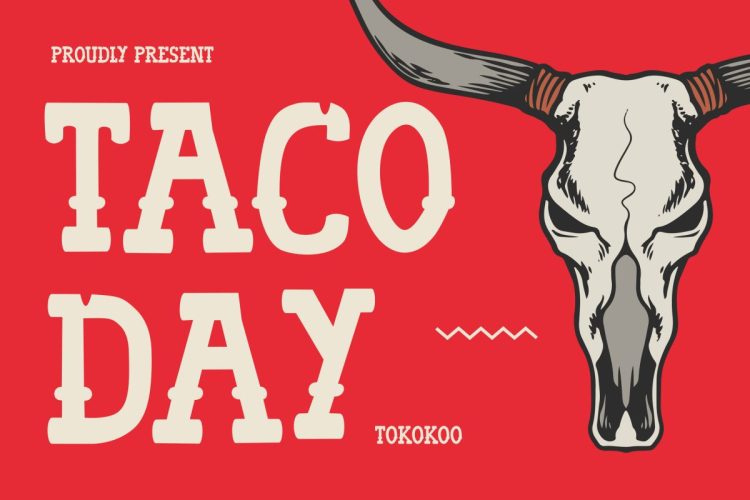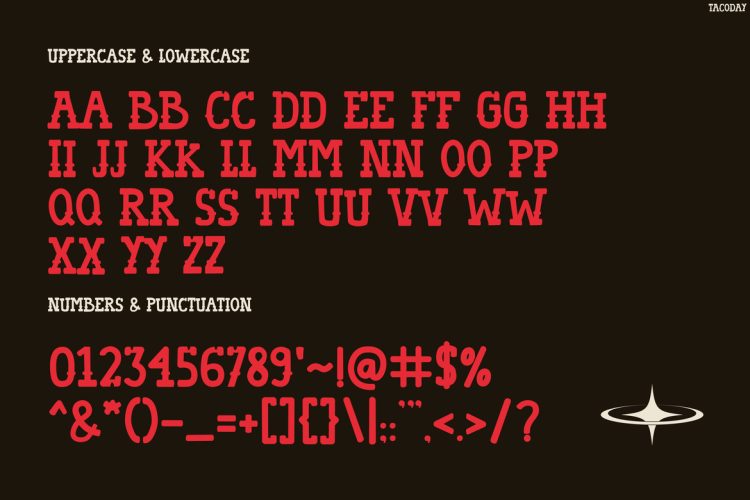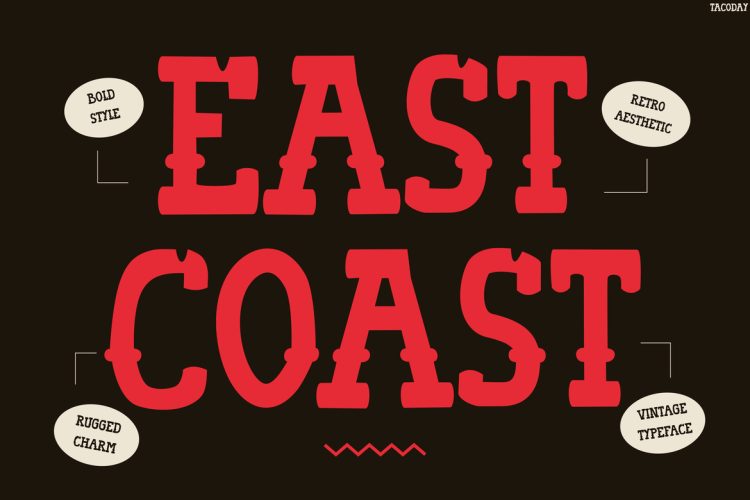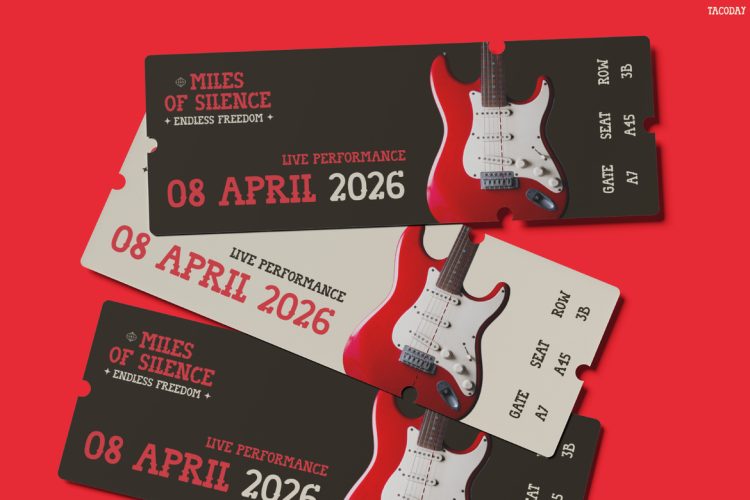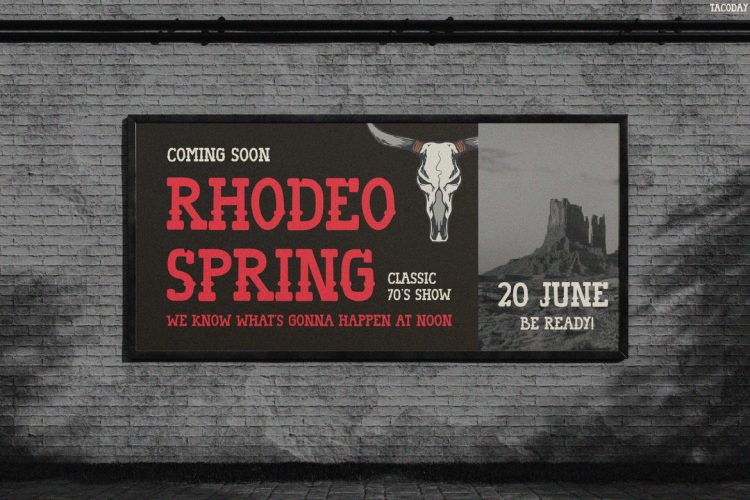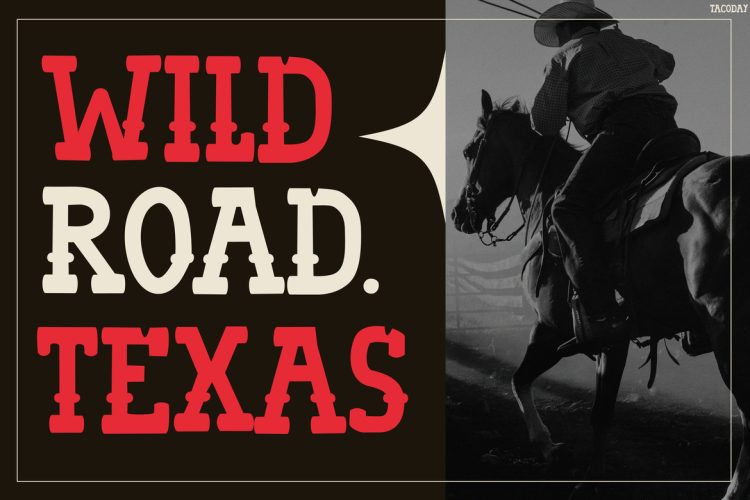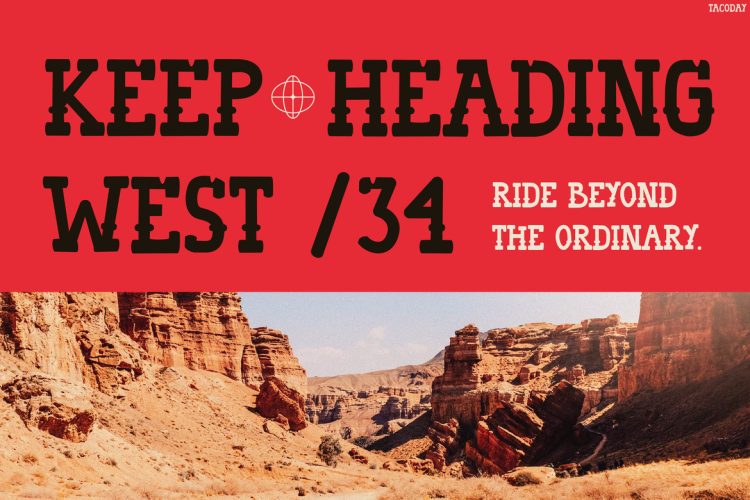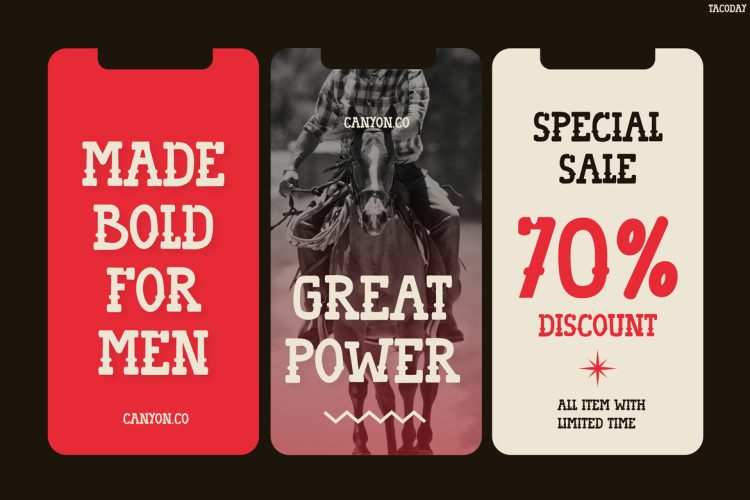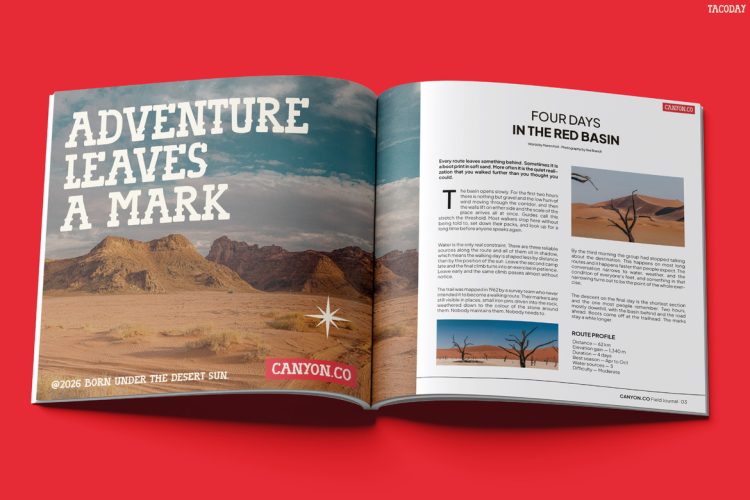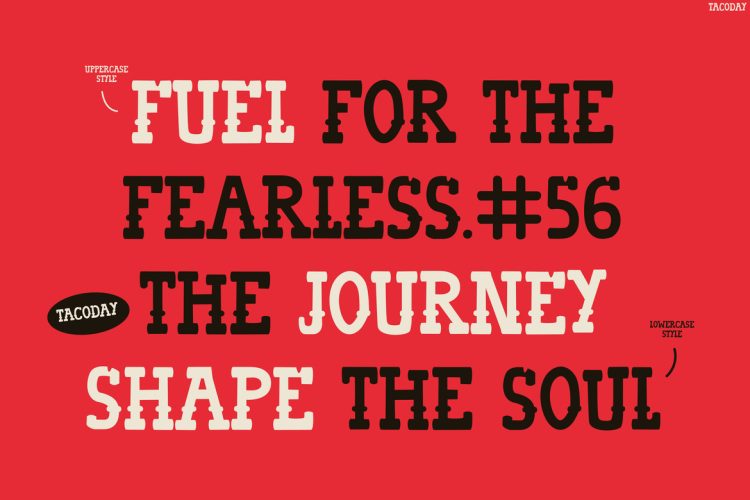
TACODAY โ Rugged Western Font Built for Bold Adventures
Western Font TACODAY brings the fearless spirit of the Wild West into a bold display typeface filled with authentic frontier character. From the very first glance, its rugged slab-inspired letterforms create a strong and unforgettable visual presence. Moreover, the handcrafted details add vintage charm while preserving excellent readability. As a result, every headline feels powerful, confident, and full of personality. At the same time, its balanced structure keeps layouts clean and easy to read. Even better, TACODAY works beautifully across both print and digital projects, giving every design a timeless Western atmosphere.
Why You’ll Love It
Whether you’re creating posters, branding, apparel, restaurant menus, whiskey labels, album covers, or social media graphics, Western Font TACODAY delivers authentic cowboy style with modern flexibility. Furthermore, its bold letterforms instantly capture attention. In addition, the vintage aesthetic pairs effortlessly with rustic, retro, and contemporary layouts. Not only does it strengthen your visual identity, but it also adds warmth, adventure, and handcrafted character. Likewise, it fits creative agencies, clothing brands, cafรฉs, country festivals, outdoor businesses, musicians, and content creators. Consequently, every project becomes more memorable and visually engaging. Meanwhile, its versatile style allows you to explore countless branding possibilities without losing authenticity.
Western Font TACODAY Perfect For
- Western branding
- Cowboy and rodeo events
- Vintage posters
- Restaurant and BBQ menus
- Whiskey and craft packaging
- Apparel and merchandise
- Country music artwork
- Adventure branding
- Social media graphics
- Editorial headlines